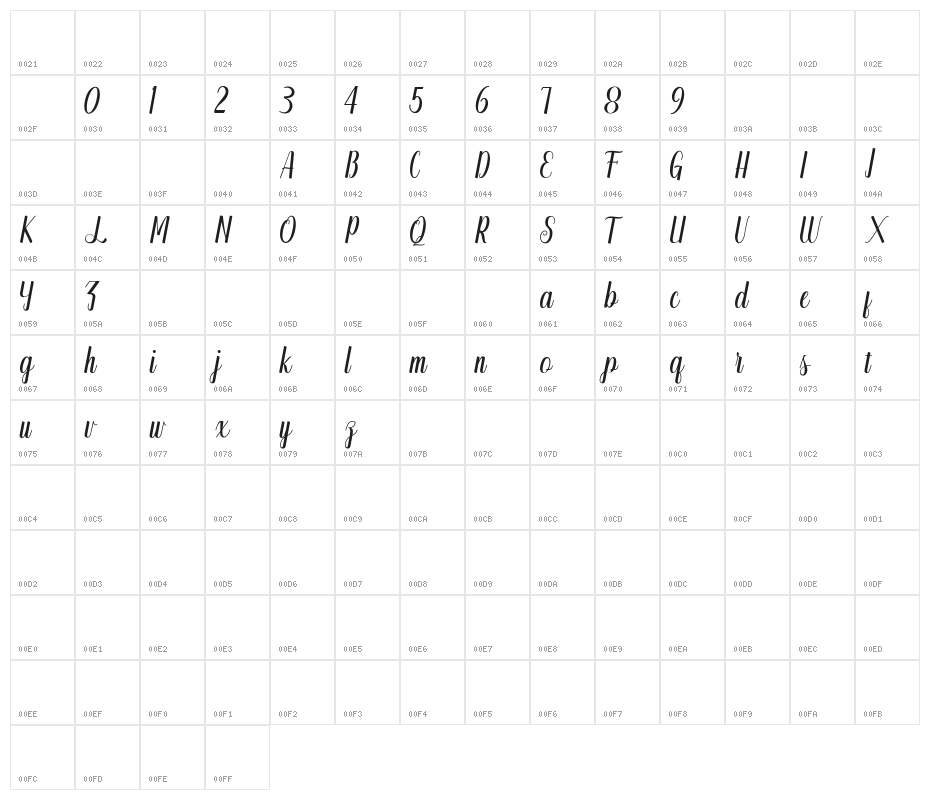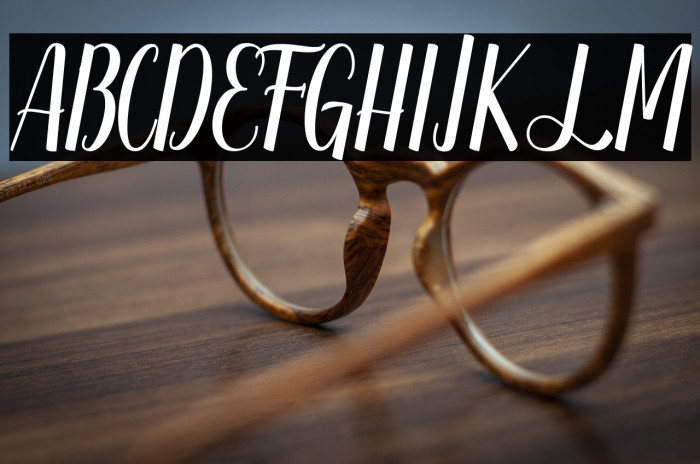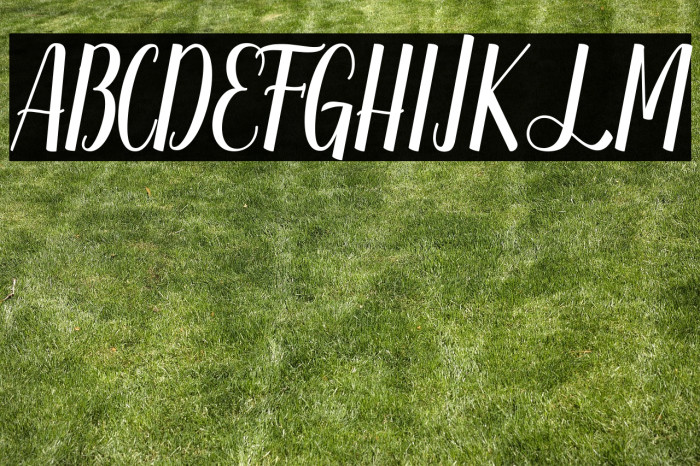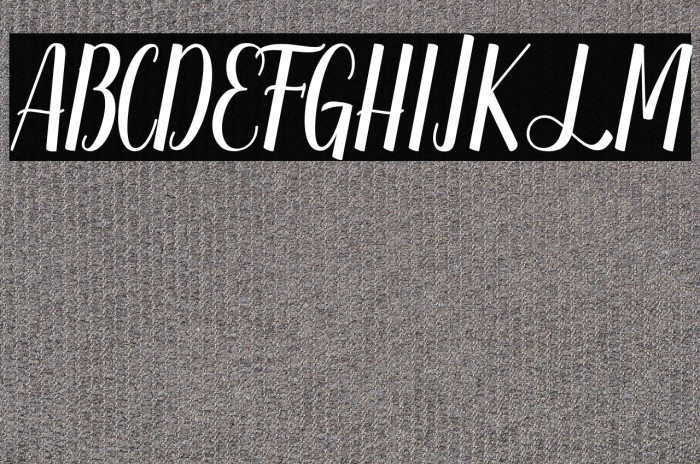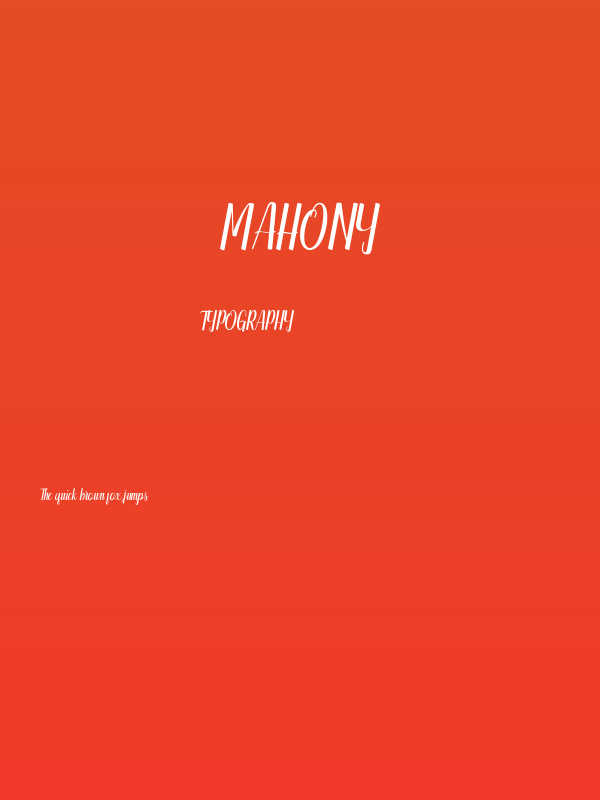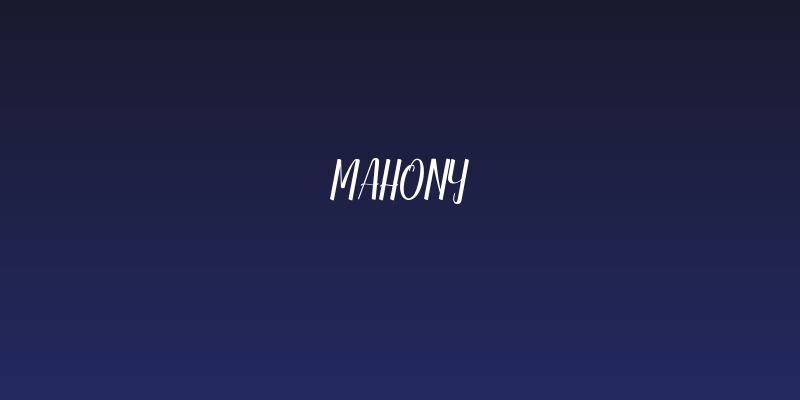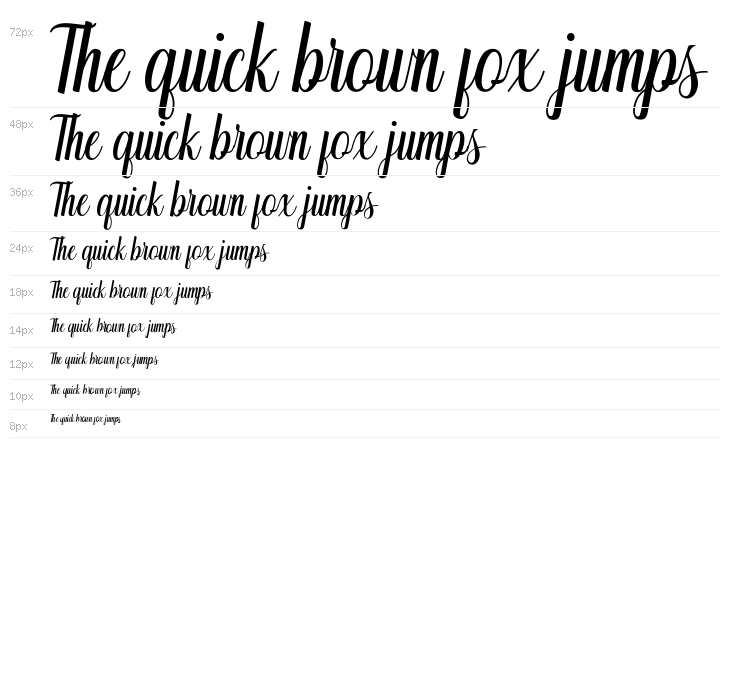
mahony Font
mahony Description
This font features a dynamic and elegant script style with a modern twist. The uppercase letters are tall and slender, with a slight slant that adds a sense of motion and fluidity. The lowercase letters maintain a consistent flow, with smooth curves and a slightly condensed form. The numerals are stylish and maintain the same slant, integrating seamlessly with the alphabet. Special characters are designed with the same attention to detail, ensuring a cohesive look. The overall design is sophisticated, making it suitable for projects that require a touch of elegance and modernity.
| Proposed Projects | Ideal for wedding invitations, elegant branding, fashion magazines, and high-end product packaging. |